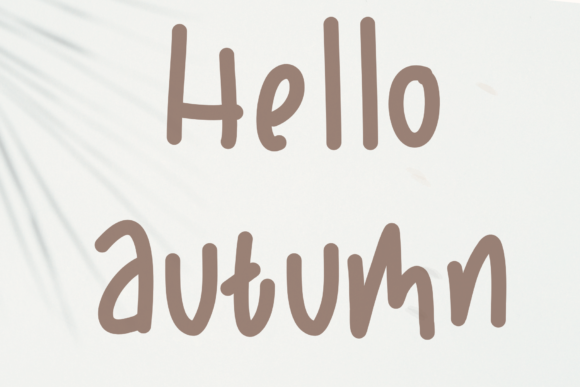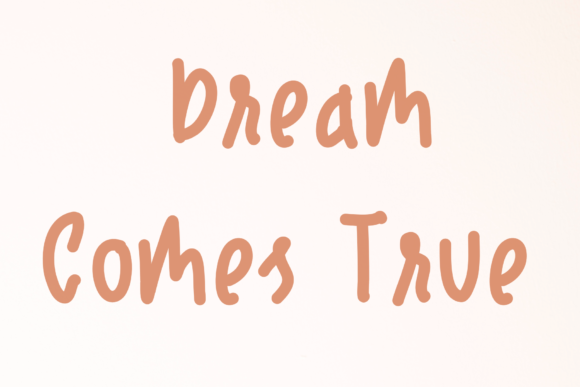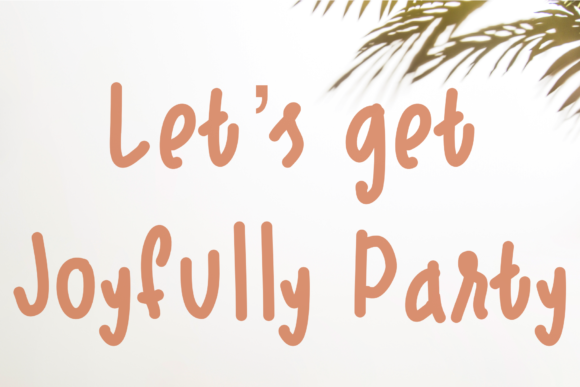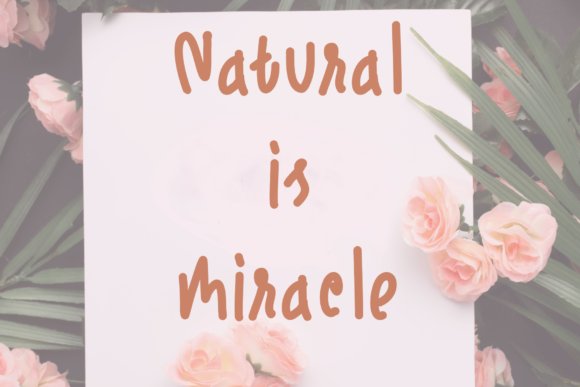
Camilian Font: The Ultimate Handwritten Font for Your Design Needs
Are you a designer or crafter looking for a font that can elevate your design game? Look no further than Camilian Font! This cool and natural handwritten font is perfect for anyone who wants to add a personal touch to their designs. In this article, we’ll dive into the features and benefits of Camilian Font, and explore how it can help you bring your design ideas to life.
What is Camilian Font?
Camilian Font is a beautifully crafted handwritten font that exudes simplicity and friendliness. Its unique and elegant style makes it perfect for a wide range of design projects, from branding and advertising to packaging and digital media. Whether you’re a professional designer or a DIY crafter, Camilian Font is an excellent choice for anyone looking to add a touch of warmth and personality to their designs.
Key Features of Camilian Font
- Cool and Natural Handwritten Style: Camilian Font boasts a unique and natural handwritten style that sets it apart from other fonts. Its elegant and flowing lines give it a friendly and approachable feel that’s perfect for designs that need a personal touch.
- Simple and Friendly: This font is designed to be simple and easy to read, making it perfect for body text and headings. Its friendly style also makes it ideal for designs that need to connect with the audience on a personal level.
- Highly Versatile: Camilian Font is incredibly versatile and can be used for a wide range of design projects. Whether you’re working on a logo, brochure, or social media graphic, this font is sure to impress.
Benefits of Using Camilian Font
So, why should you choose Camilian Font for your design projects? Here are just a few benefits of using this amazing font:
- Adds a Personal Touch: Camilian Font’s handwritten style adds a personal touch to your designs, making them stand out from the crowd.
- Improves Readability: This font is designed to be easy to read, making it perfect for body text and headings.
- Increases Engagement: The friendly and approachable style of Camilian Font can help increase engagement with your audience, making your designs more effective.
How to Use Camilian Font in Your Designs
Using Camilian Font in your designs is easy! Here are a few tips to get you started:
- Pair it with Other Fonts: Camilian Font pairs well with other fonts, so don’t be afraid to experiment with different combinations.
- Use it for Headings and Body Text: This font is perfect for both headings and body text, making it a great choice for a wide range of design projects.
- Experiment with Colors and Textures: Camilian Font looks great in a variety of colors and textures, so don’t be afraid to get creative!
In conclusion, Camilian Font is a cool and natural handwritten font that’s perfect for designers and crafters who want to add a personal touch to their designs. Its simple and friendly style makes it highly versatile and easy to use, and its unique and elegant lines give it a warm and approachable feel. Whether you’re working on a branding project, packaging design, or digital media, Camilian Font is an excellent choice. So why wait? Download Camilian Font today and start bringing your design ideas to life!
- Is Camilian Font easy to read?: Yes, Camilian Font is designed to be easy to read, making it perfect for body text and headings.